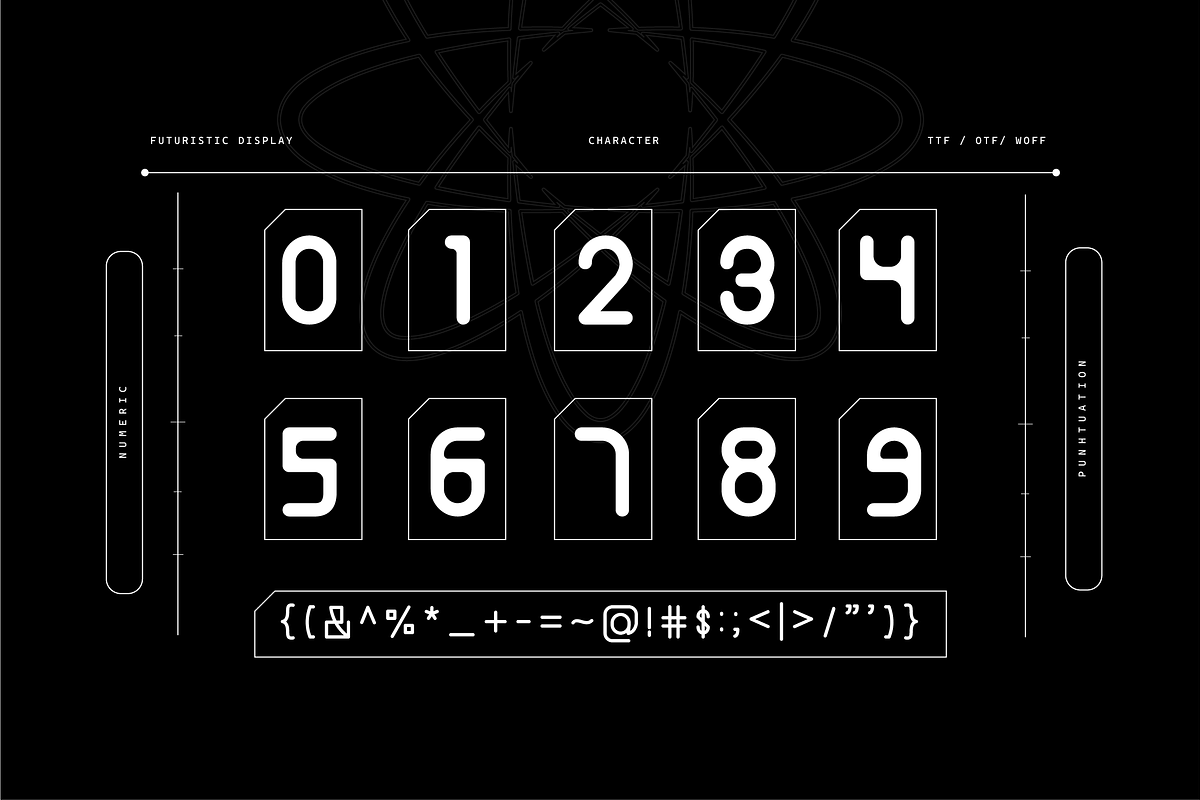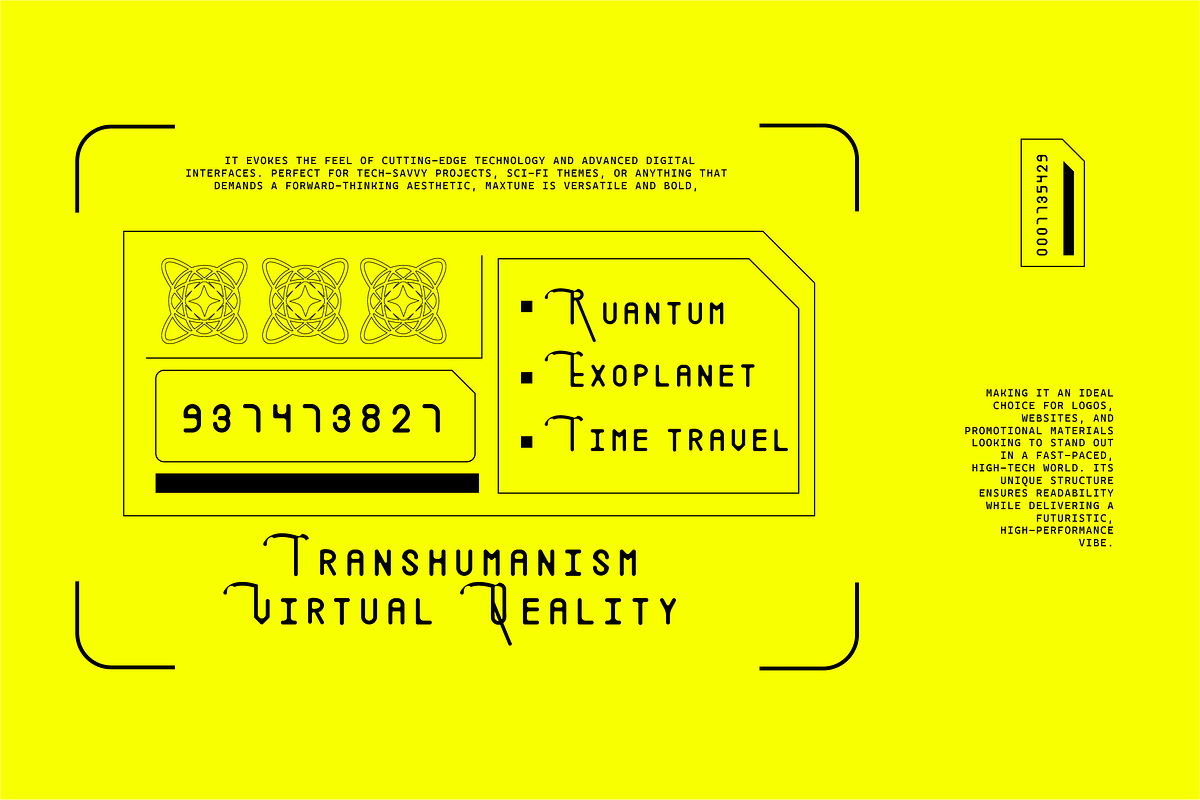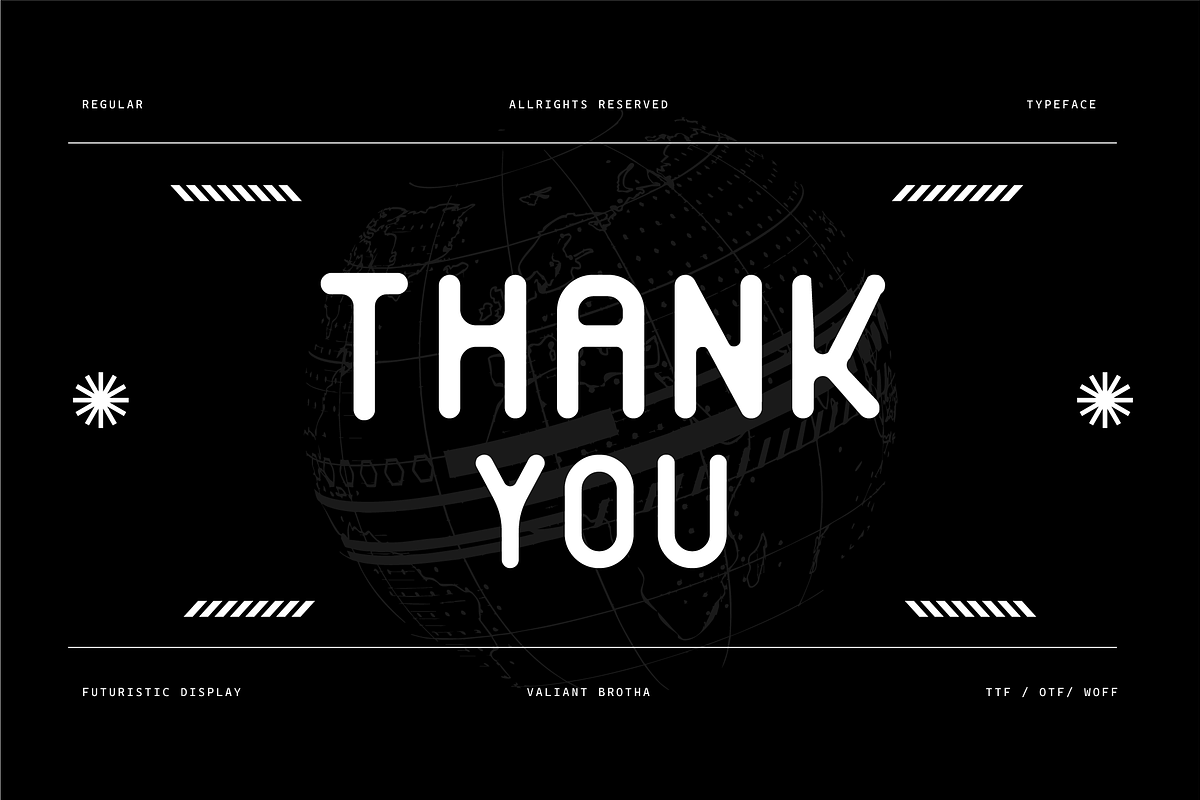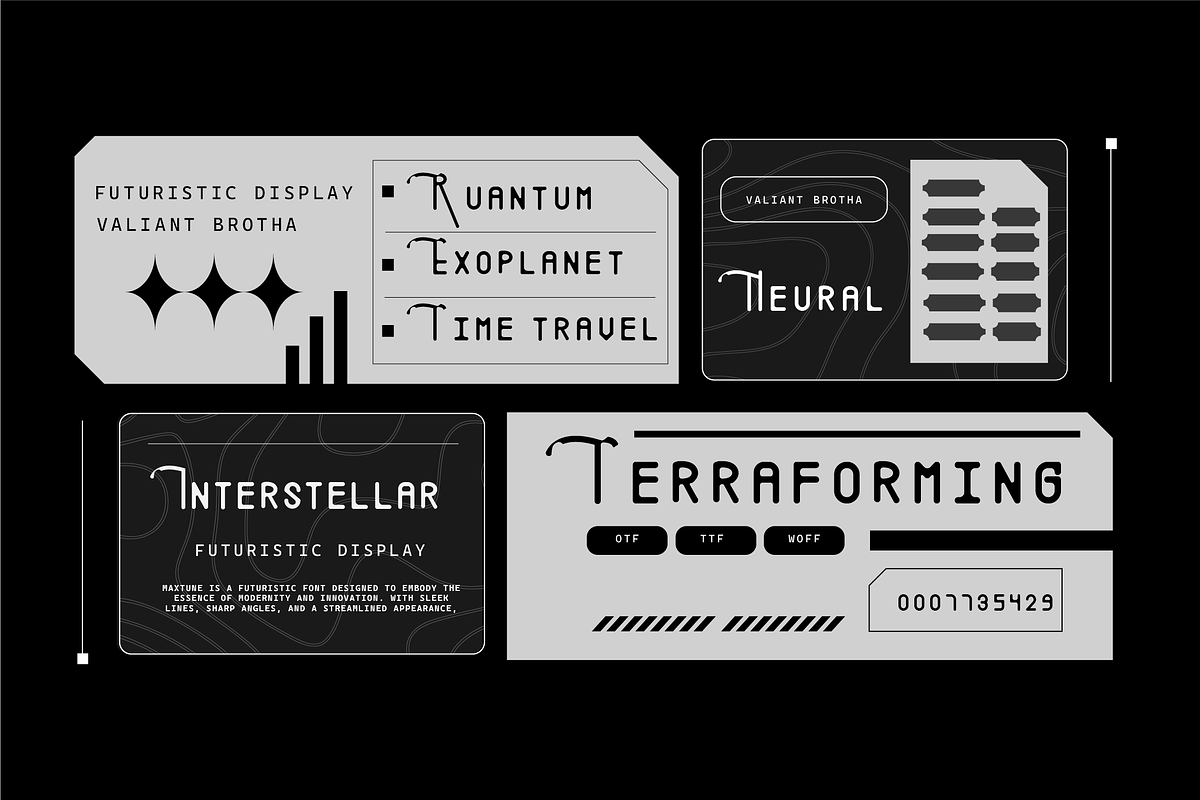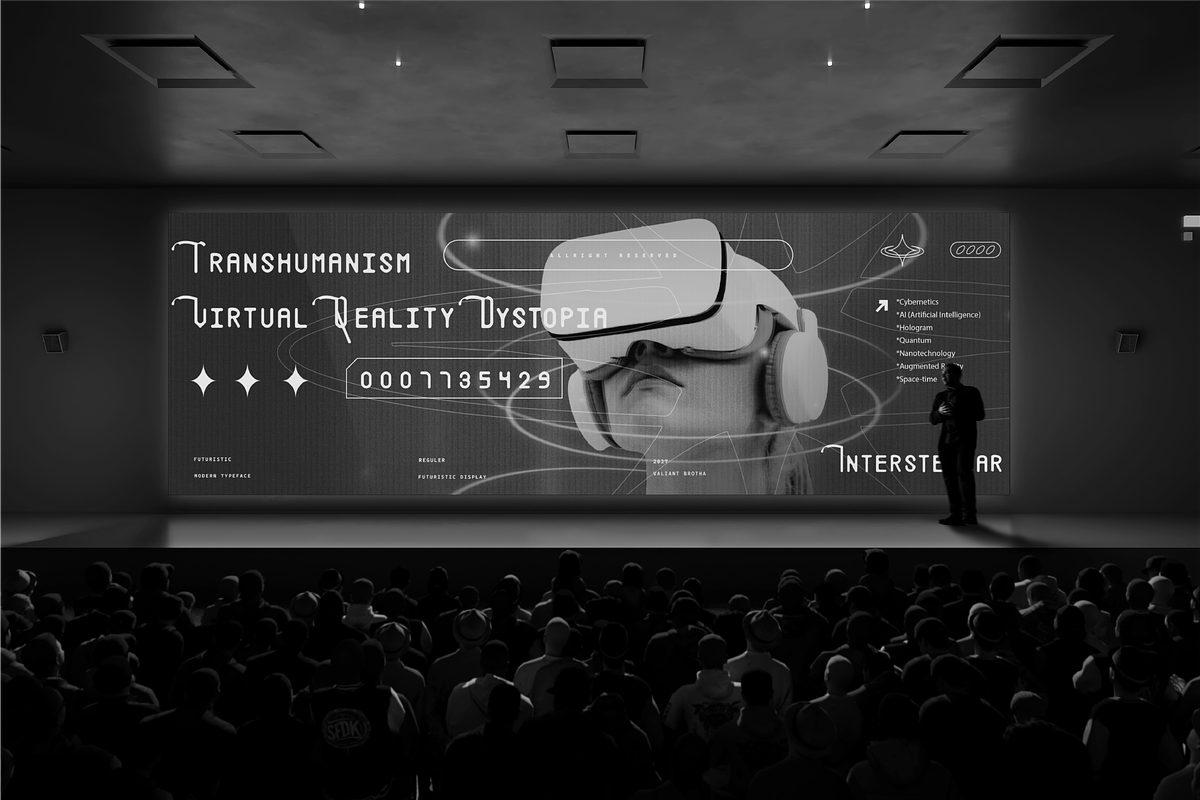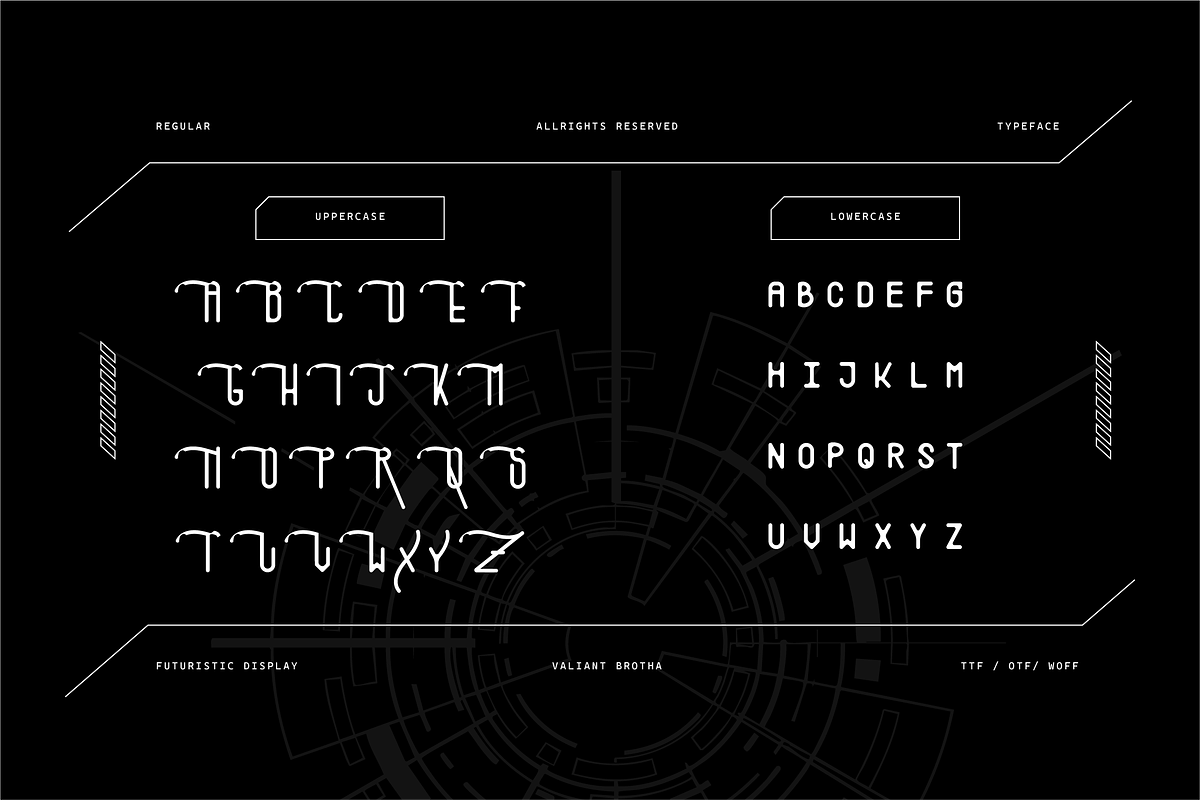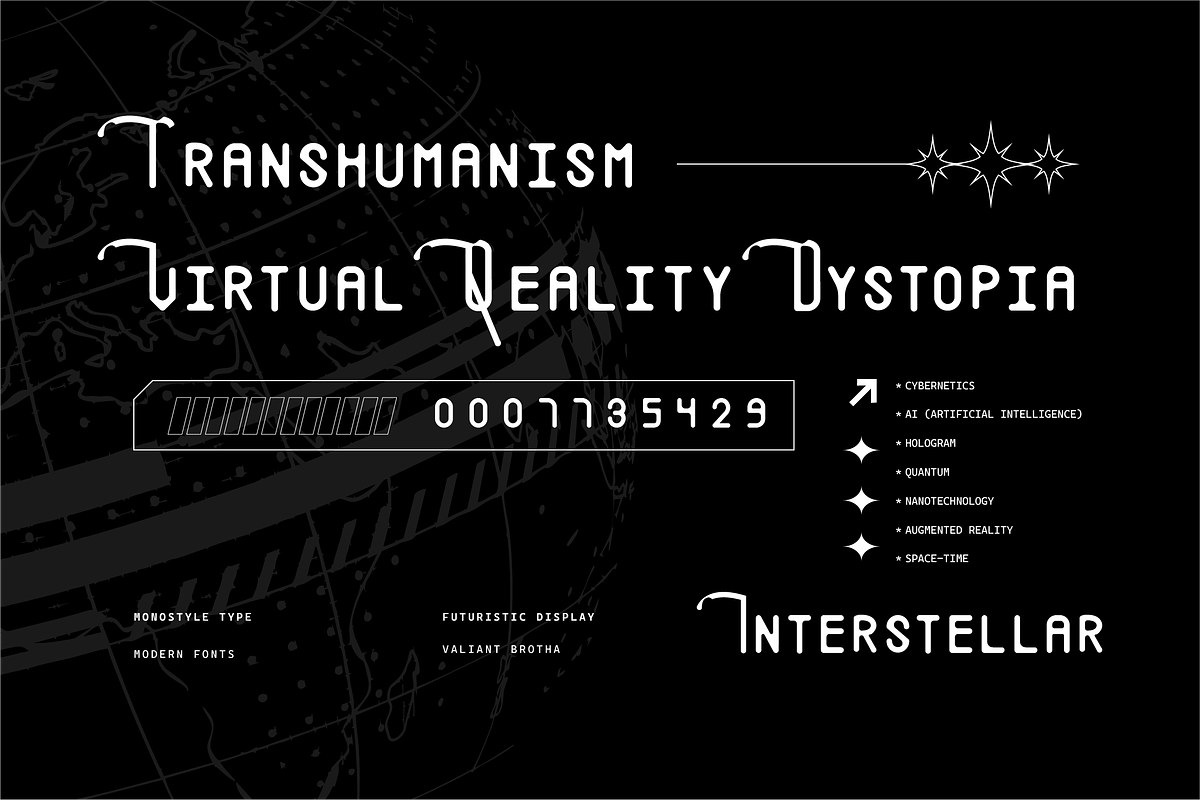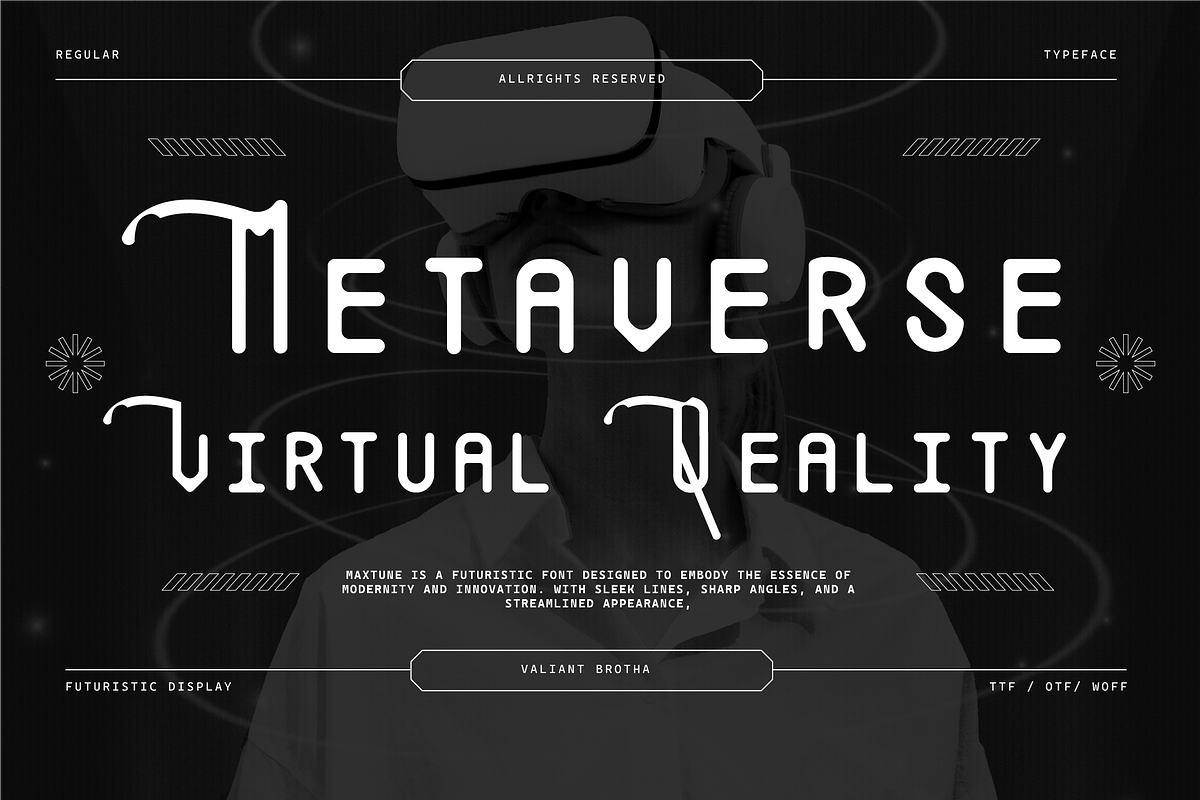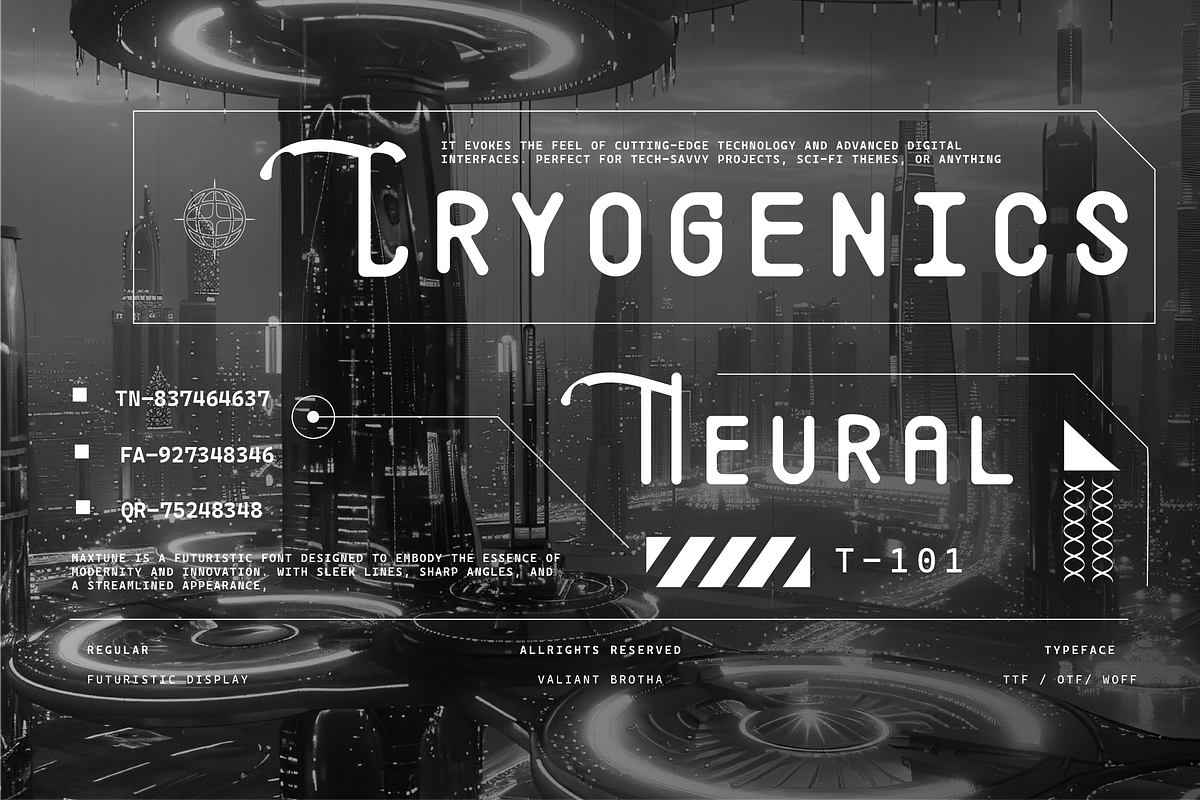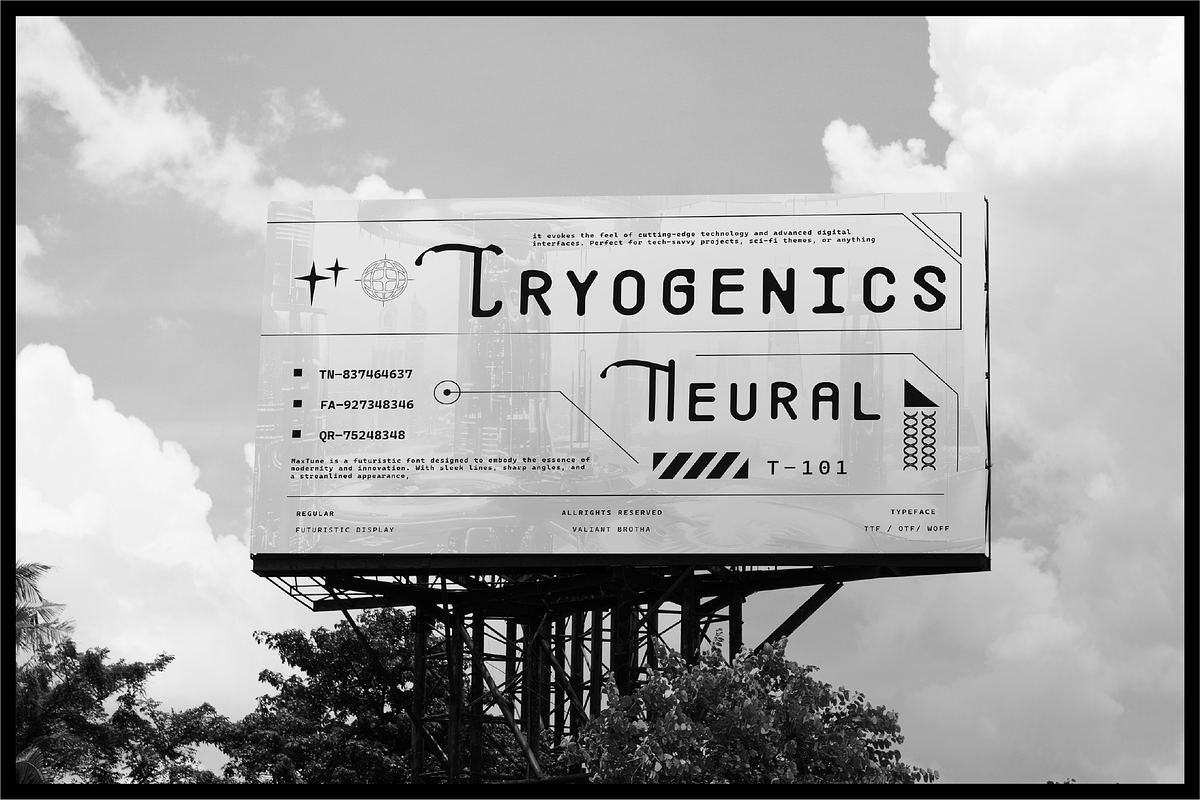
VB Maxtune - Futuristic Display Font
Maxtune Font is a monoline techno style, dynamic typeface that blends strength with sophistication. With its sharp, angular edges and strong, clean lines.